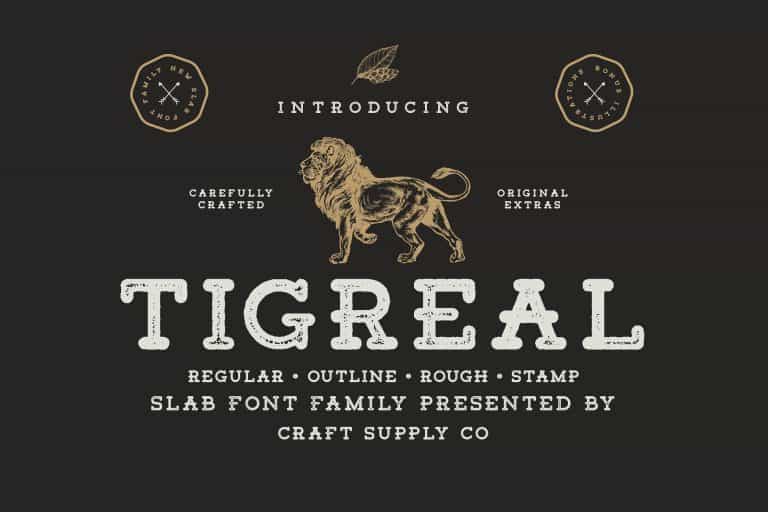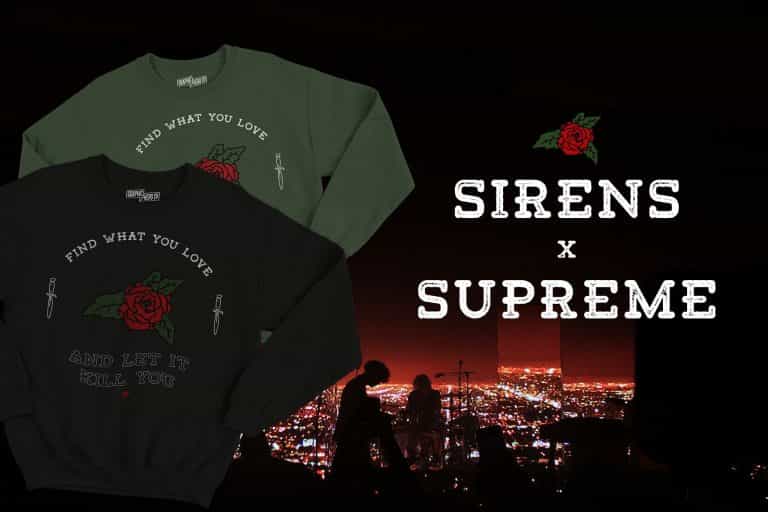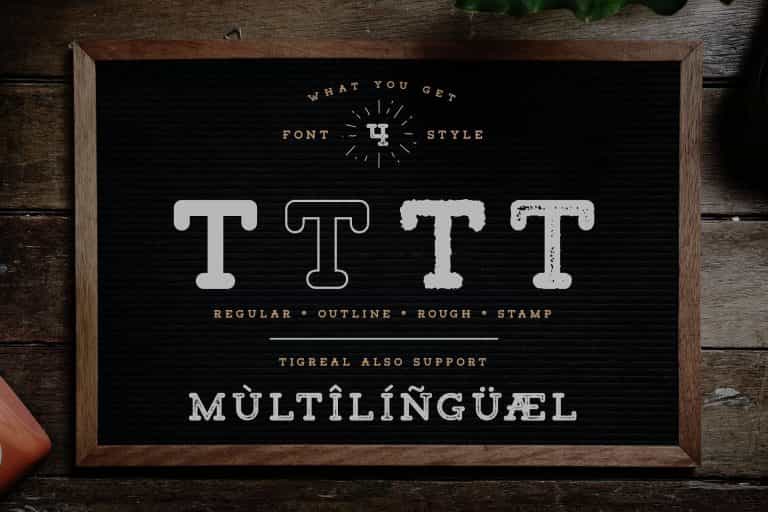
Hello! The Craft Supply Co. is introducing the Tigreal Font family consisting of slab fonts. Tigreal Family + Illustrations is comprised of 4 different fonts styles. It can be employed in the making of almost all design projects such as print materials. Just use your imagination and some graphic design set in Extras, the project will become more alive and look great than ever with one of the Tigreal Font.